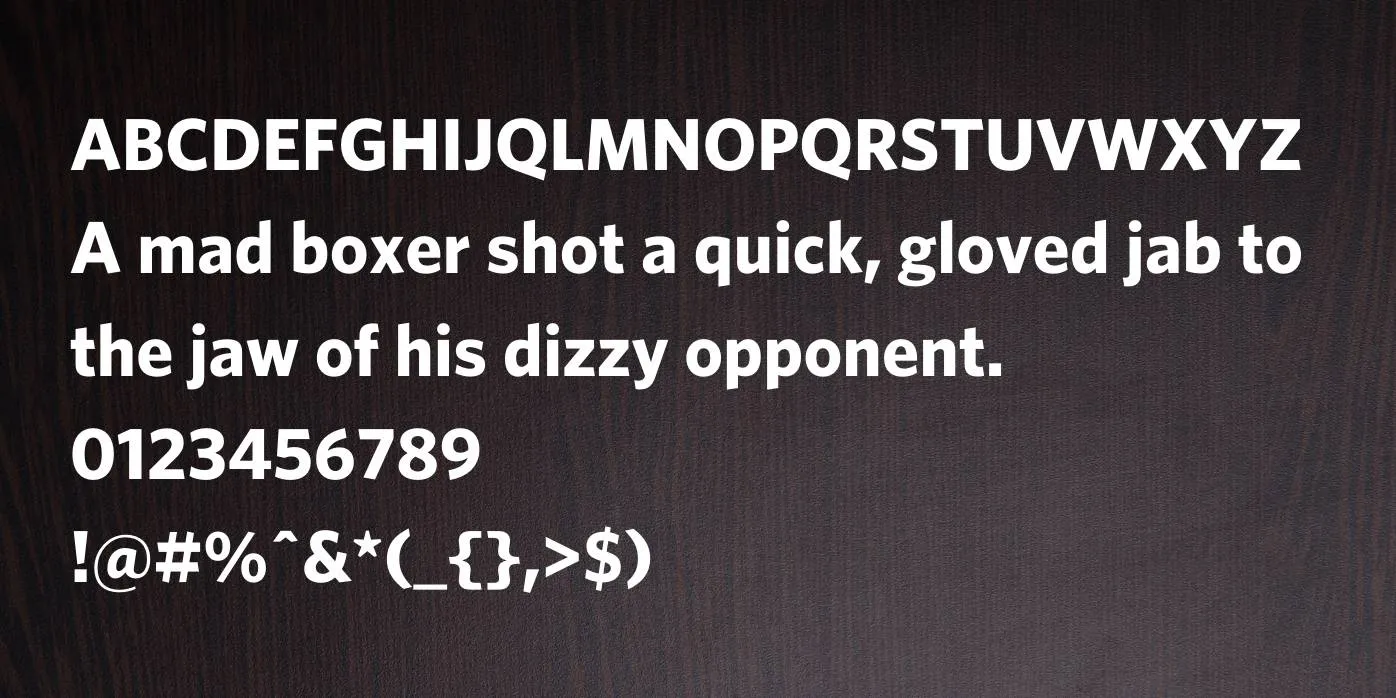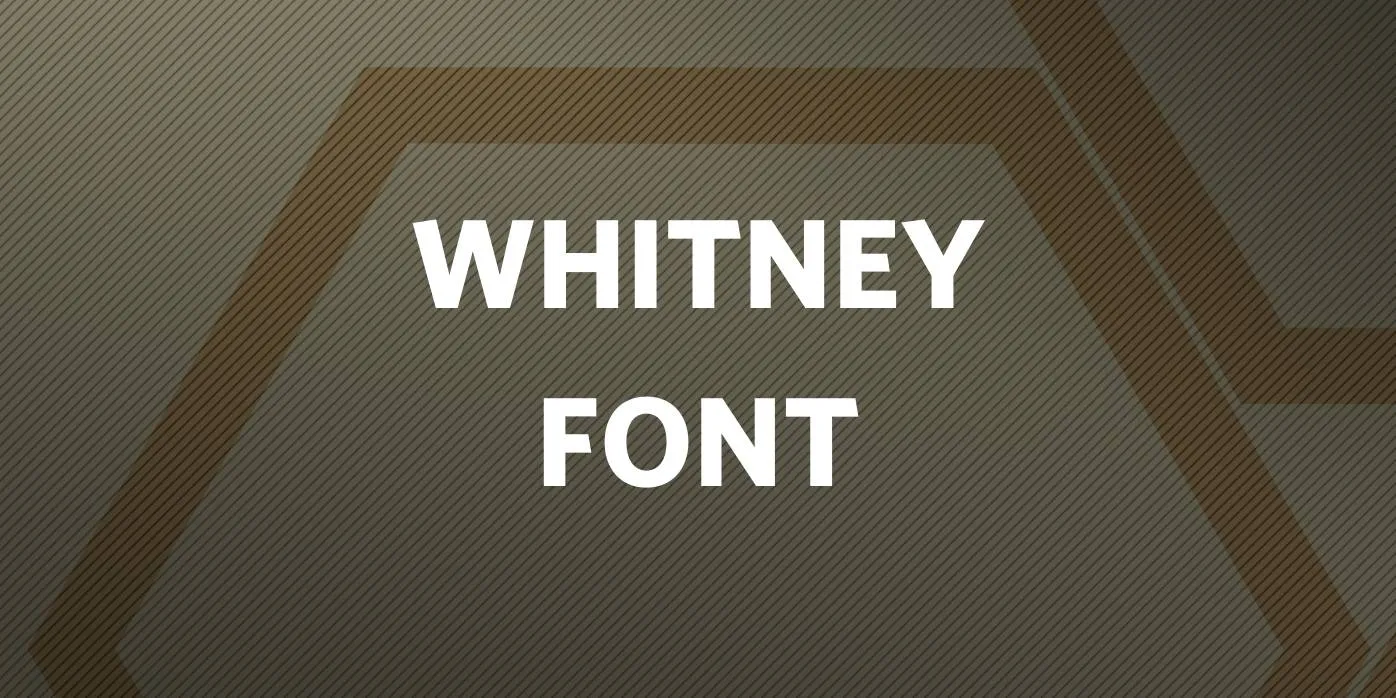
Whitney Font
Right here is Whitney Font that is a proud member of the CSS family. This typeface is also utilized in Adobe and is also present inside Microsoft word. The font family belongs to a sans serif typeface family and was designed by Tobias Frere-Jones. Collectively with enterprise agency business enterprise logos and steel fabricated lettering.
That could be a further lovely and particular kind in sans serif typeface family. The font family has an OTF feature and has many beautiful weights. The font family has many weights include Light, Medium, Bold, Book, Book Italic, Light Italic, Medium Italic, SemiBold, SemiBoldItalic, and all styles have Opentype Layout and Postscript outlines with Uppercase and lowercase letters, numbers, and manageable symbols also.